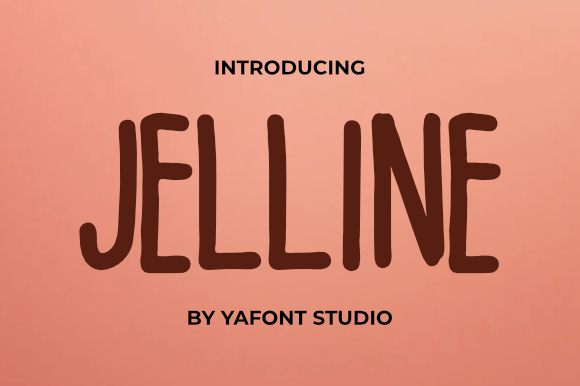
Introduction to Jelline Font Font
Fonts play a crucial role in design, and the Jelline Font font is a typeface that brings both character and versatility to any project. Whether you’re working on a branding project, a website, or a print design, the Jelline Font font offers a unique style that can elevate your work.
Jelline is a neat and simple handwritten font.
It can be used for various purposes such as logos, headings, t-shirts, letterhead, signage, labels, news, posters, badges and so much more Add it to your most creative ideas and notice how it makes them come alive.
Key Features of Jelline Font Font
Why Choose Jelline Font Font?
The Jelline Font font is more than just a typeface – it’s a design tool that helps you communicate your message with style and clarity. Its unique character set and versatile design make it suitable for a wide range of applications, from elegant invitations to bold headlines.
With its carefully crafted letterforms and balanced proportions, the Jelline Font font ensures readability and visual appeal across all mediums.
What makes Jelline Font font special?
The Jelline Font font stands out with its unique design, exceptional readability, and versatility across various design applications.